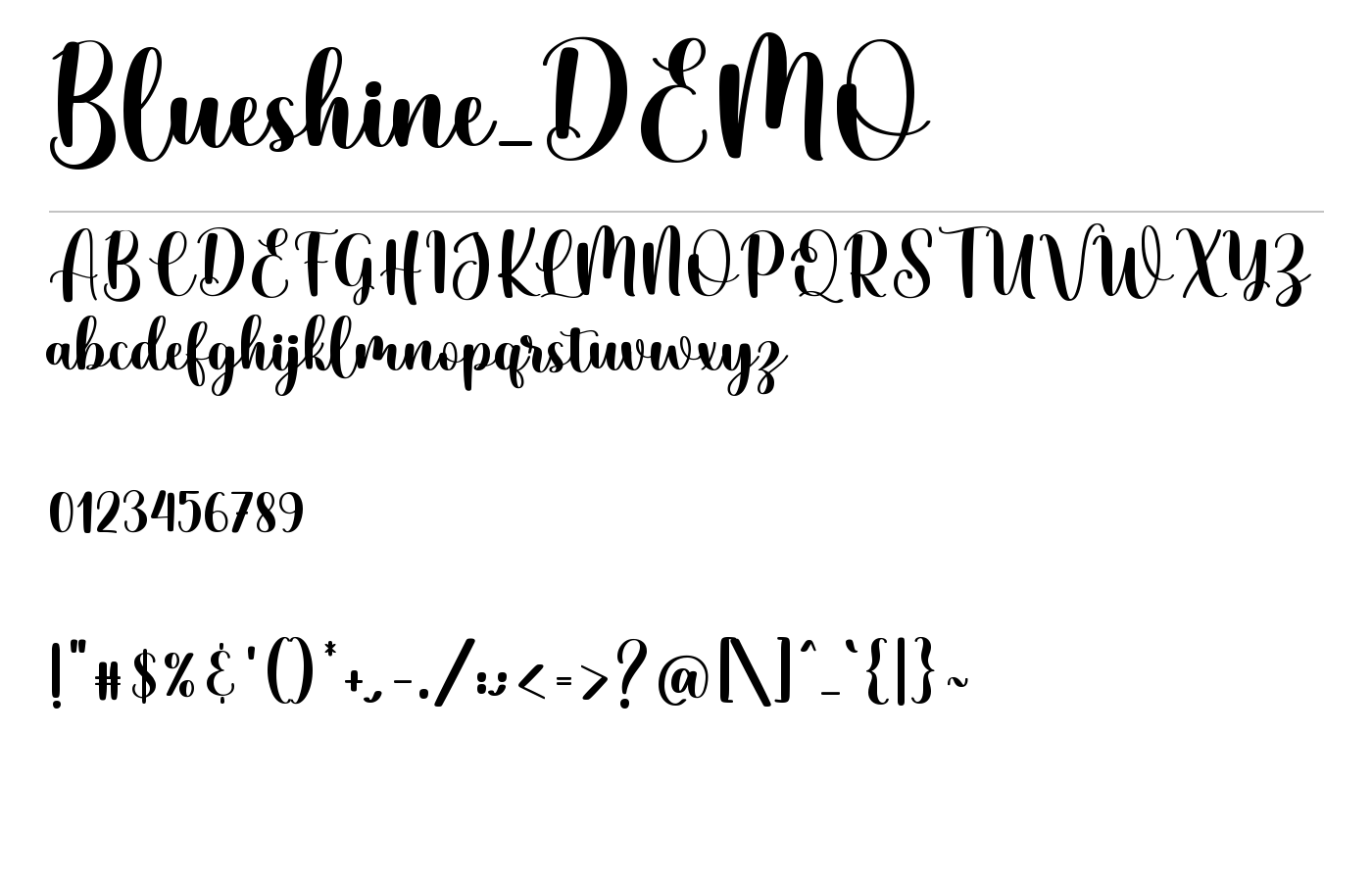
Blueshine_DEMO is a playful and elegant script font characterized by its flowing, brush-like strokes and high contrast between thick and thin lines. It features both uppercase and lowercase letters with distinctive swashes and curls, giving it a lively, handcrafted feel perfect for creative branding, invitations, and stylish headlines. This font works best when used to add a personal, artistic touch to designs that aim to be both charming and sophisticated.
Blueshine_DEMO Font